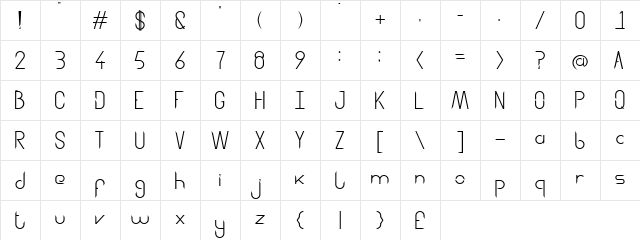
Aggressor Aggressor
Design Context for Aggressor Typeface
Aggressor offers clean, dependable letterforms without strong stylistic allegiance, making it a practical choice for designers who need flexibility.
Pro Tip: Use Aggressor in both headline and body roles to test its range before committing to a single application.